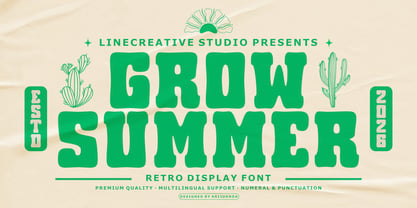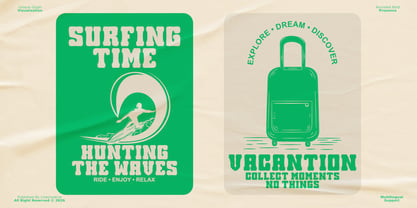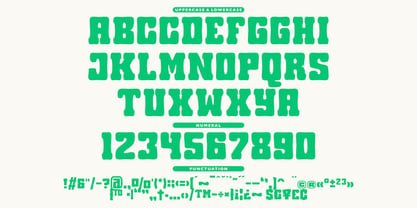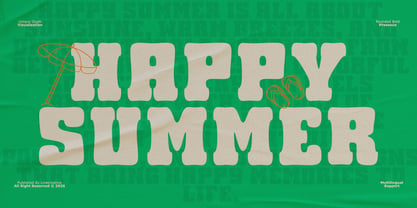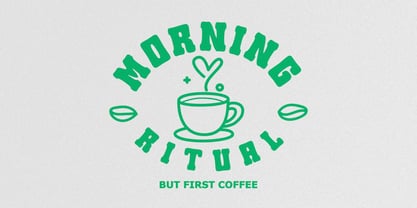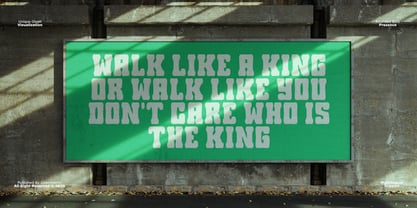
Grow Summer
by Linecreative
The Grow Summer Font Family was designed by Ari Juanda and published by Linecreative. Grow Summer contains 1 styles. More about this family
Bring sunshine, adventure, and vintage vibes into your next creative project with Grow Summer, a bold retro display font inspired by endless beach days, road trips, surf culture, and nostalgic summer memories.
Designed with chunky rounded letterforms and a soft vintage personality, Grow Summer instantly creates eye-catching headlines while maintaining excellent readability. Every character is crafted to deliver a cheerful, friendly, and timeless aesthetic that feels right at home on posters, logos, packaging, apparel, and branding.
Designers: Ari Juanda
Foundry: Linecreative